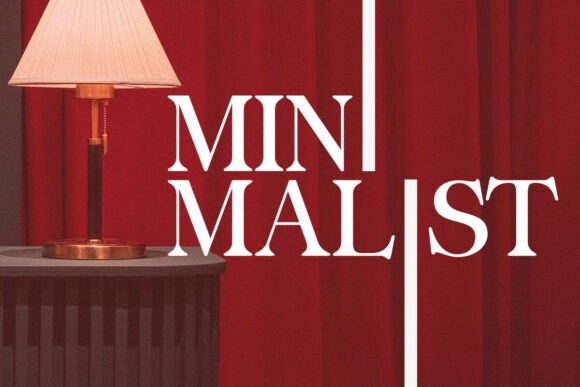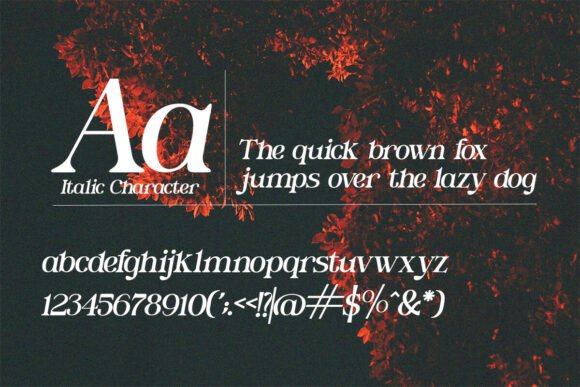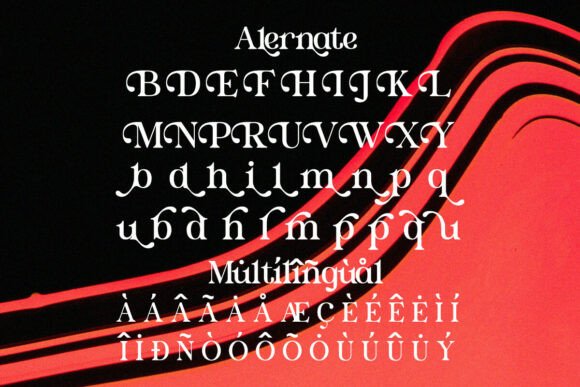
Introduction to Lubidow Font
Do you ever find yourself staring at a blank page, searching for the perfect font to elevate your creative project? The struggle is real, especially when you’re working on a high-end branding or editorial design. That’s where the Lubidow Font comes in – a sophisticated serif display font that combines timeless charm with a bold modern flair.
As a designer, you understand the importance of a well-crafted font in making your project stand out. That’s why Lubidow Font is a valuable resource for any creative professional. With its dramatic contrast, flowing curves, and signature swash touches, Lubidow is designed to command attention and elevate your typographic identity. Whether you’re working on a luxury branding project or a fashion editorial, Lubidow Font is the perfect tool to give your design a high-end presence.
Key Features of Lubidow Font
- Unique Lubidow Font style with a transparent background, perfect for various design applications.
Honest Review: Lubidow Font
I recently had the opportunity to work with the Lubidow Font, and I must say, it’s been a game-changer for my creative projects. The Lubidow Font is a high-quality design resource that offers a wide range of styles and options, making it perfect for any project.
- ✨ High-quality design: The Lubidow Font is crisp and clear, making it perfect for printing and digital use.
- ✨ Versatile: The font comes in a variety of styles, from casual to formal, making it easy to find the perfect fit for any project.
- ⚠️ Limited customization options: While the Lubidow Font is versatile, it may not be the best choice for designers who need a high degree of customization.
- ⚠️ Not ideal for transparent backgrounds: The Lubidow Font may not be the best choice for designers who need to use it on transparent backgrounds, as it may not display well.
Overall, I’m very impressed with the Lubidow Font. It’s a high-quality design resource that’s perfect for any creative project. While it may have a few limitations, it’s definitely worth checking out for any designer looking for a reliable and versatile font.
The Lubidow Font is a versatile design resource that can be used in a variety of creative projects, including:
Tips for Getting the Most Out of Lubidow Font
To get the most out of the Lubidow Font, be sure to:
- Use it with a transparent background for a clean and modern look
- Experiment with different font sizes and styles to add visual interest
- Pair the font with other design elements, such as images and shapes, to create a cohesive look